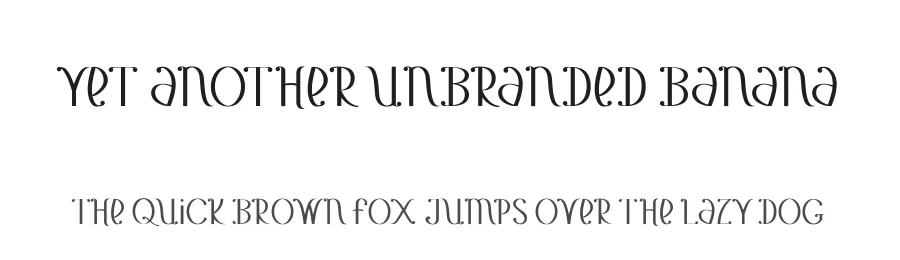
About Qaugherty Font
Qaugherty Specifications
| Font Family | Qaugherty |
| Full Name | Qaugherty |
| Glyph Count | 266 glyphs |
| PostScript Name | Qaugherty |
Qaugherty supports 222 languages.
Qaugherty Font is a decorative font that shines as a display or heading face. Pair it with a clean sans-serif or serif font for body text β the contrast creates a clear hierarchy while the two styles stay balanced and easy to read.